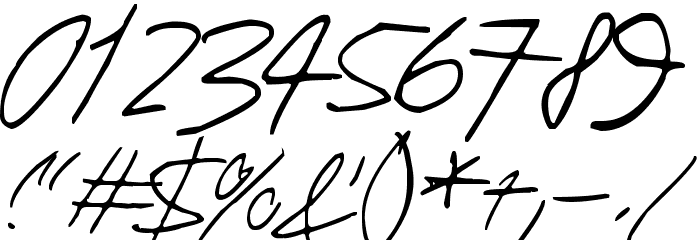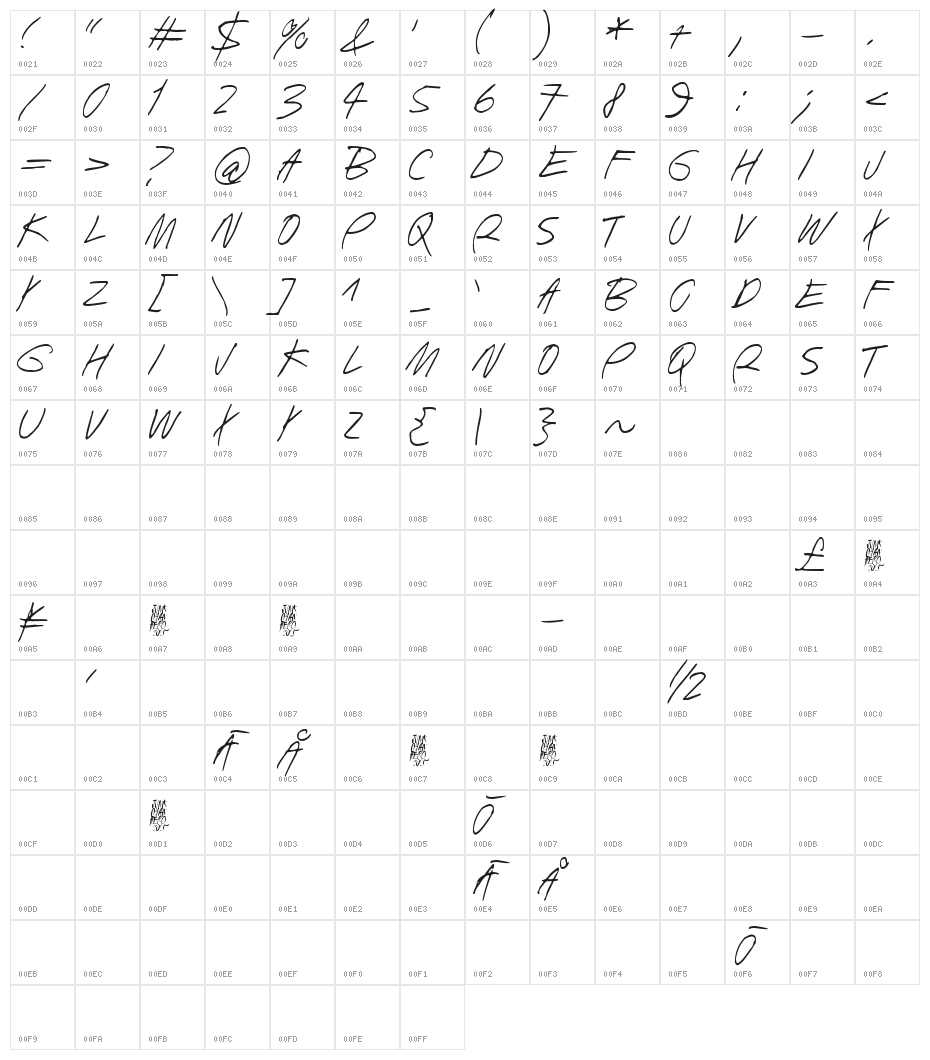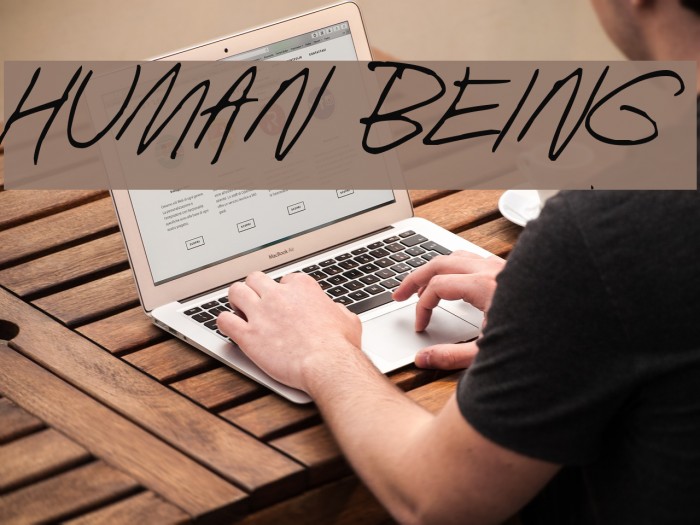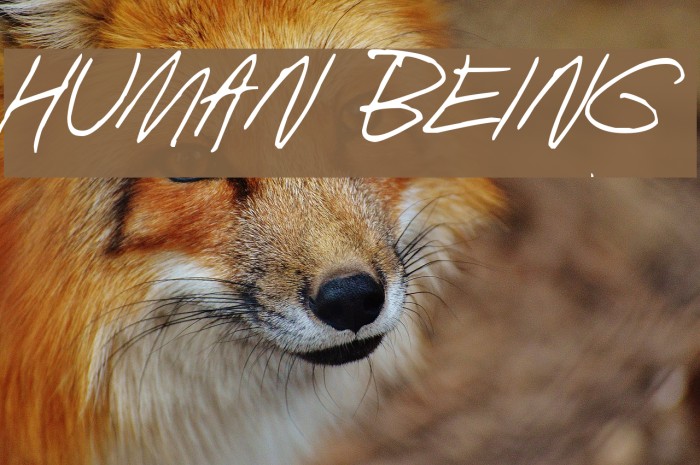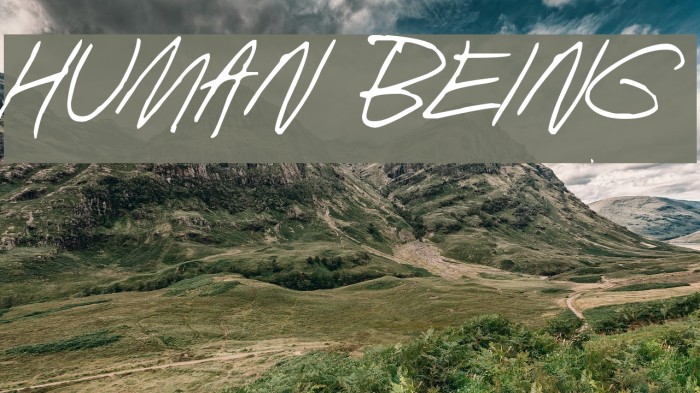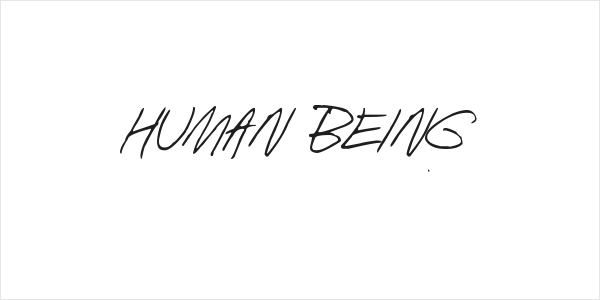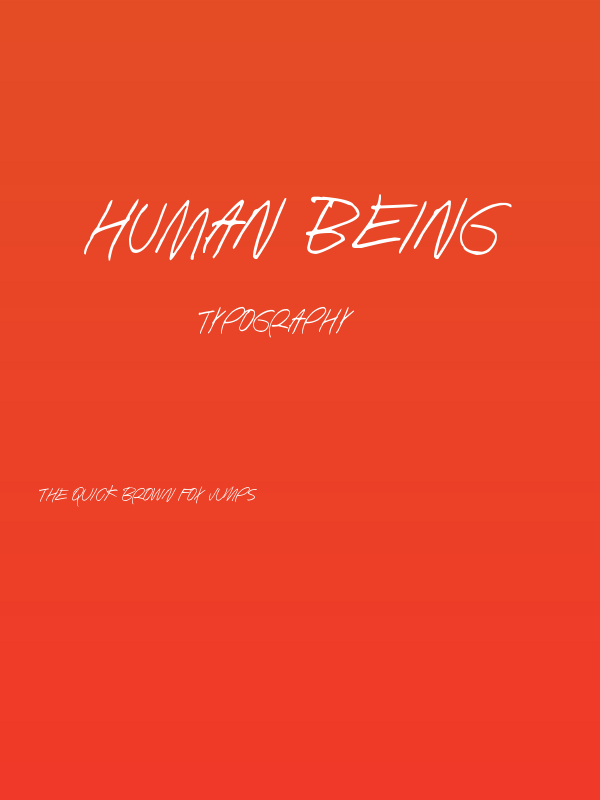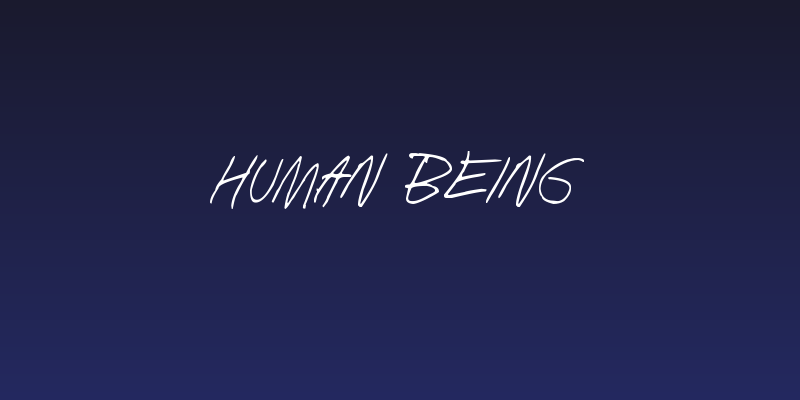
Human Being Font
Human Being Description
This font exhibits a dynamic and expressive handwritten style, characterized by its fluid and cursive letterforms. The strokes are smooth and slightly irregular, giving it a personal and authentic feel. The uppercase and lowercase letters maintain a consistent slant, enhancing the sense of motion and energy. The numbers and special characters are crafted with the same attention to detail, ensuring a cohesive look across all elements. This font's design is perfect for projects that require a touch of personality and creativity.
| Proposed Projects | Ideal for personal branding, creative invitations, artistic posters, and expressive social media graphics. |